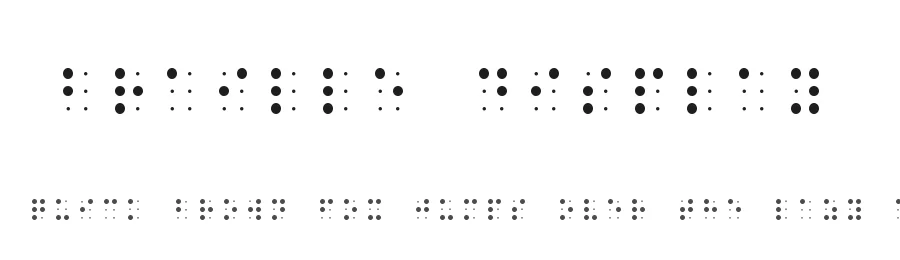
About Braille Font
Braille HC is a work-in-progress family of typefaces based on the Braille language. Four styles [ Pixel, Pinboard, Grid, Latin ] and a color .svg to be developed.
Braille Font is a decorative font that shines as a display or heading face. Pair it with a clean sans-serif or serif font for body text β the contrast creates a clear hierarchy while the two styles stay balanced and easy to read.
Braille Font